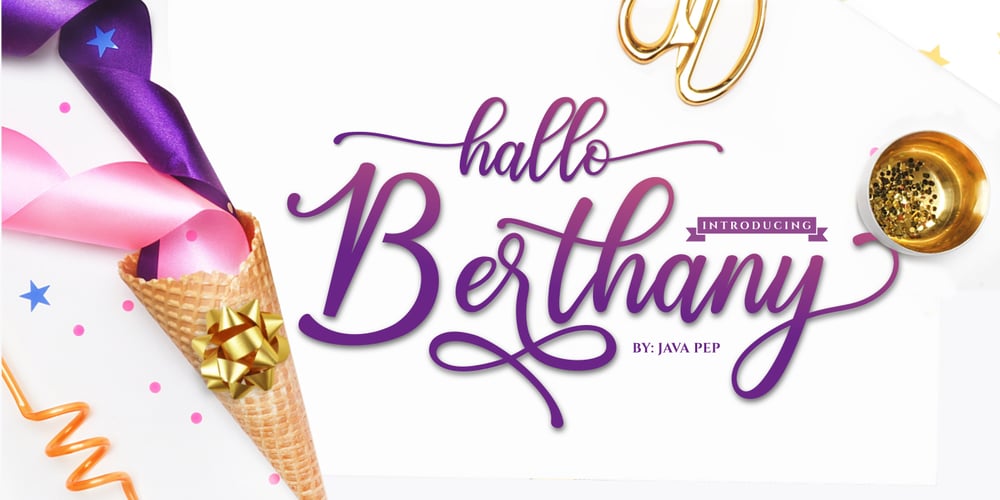
Hallo Berthany Font Family was designed by Java Pep and published by Java Pep. Hallo Berthany contains 1 styles and family package options. Introducing the pretty amazing script font that will add a bold feel called Hallo Berthany. This font has already OpenType features such as swashes, alternates, stylistic alternates, SS01-SS06 and supports 17 languages. Hallo Berthany is suitable for greeting cards, logotype, wedding, invitation card, signature mark and more. I’ve made the special font for all OpenType features like alternate, swashes, stylistic alternates etc. Get inspired by its unique style. What’s included: – PUA encoded – Multilingual support – Opentype features If you have any questions or need technical support, don’t hesitate to drop a message or contact me. Thanks have a nice day!